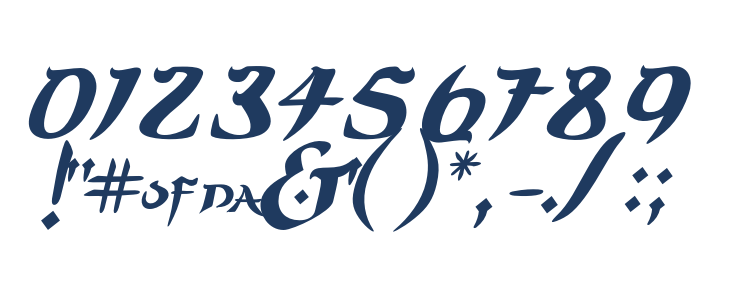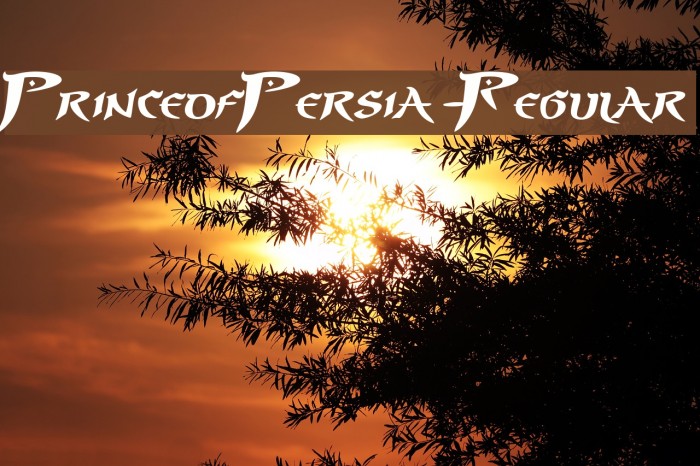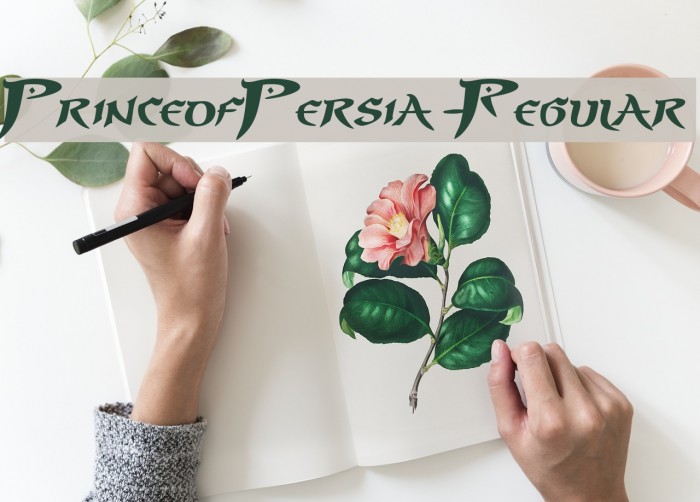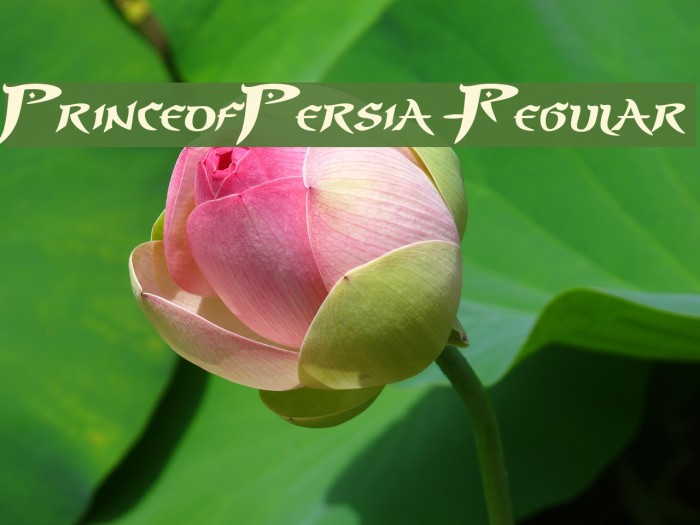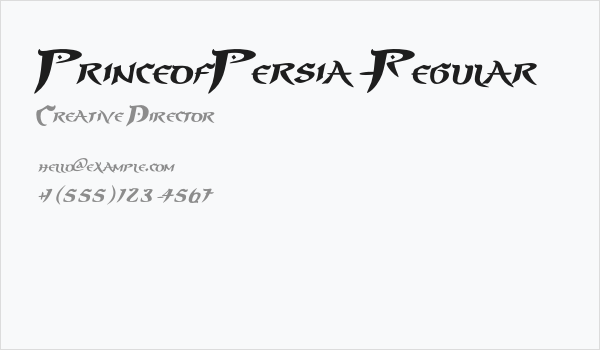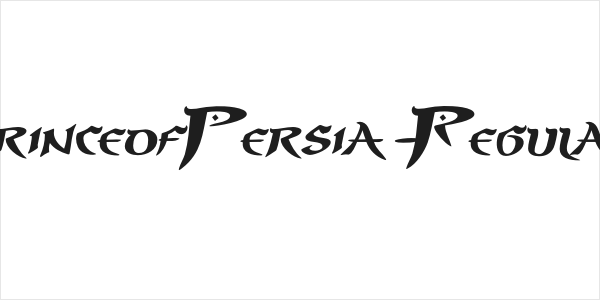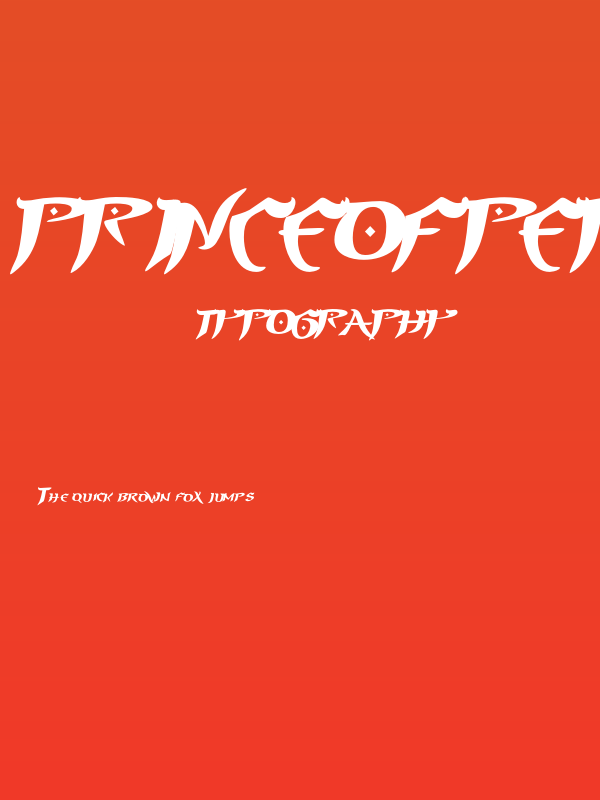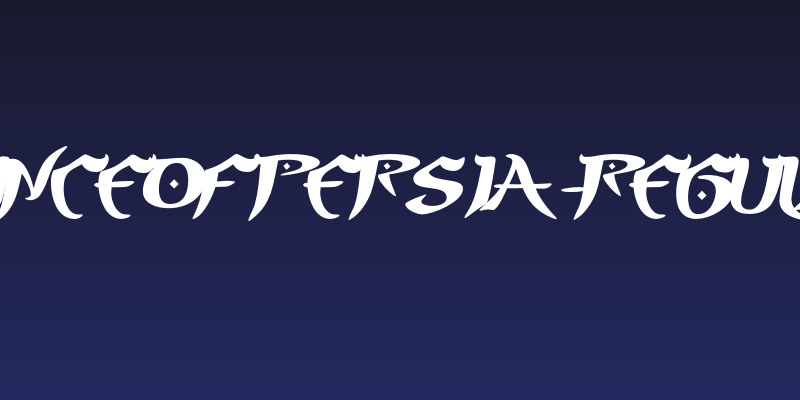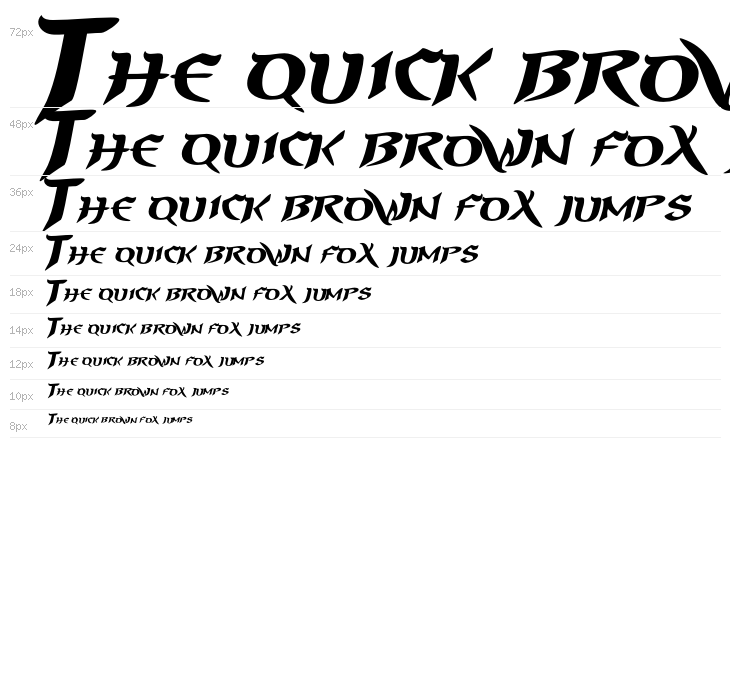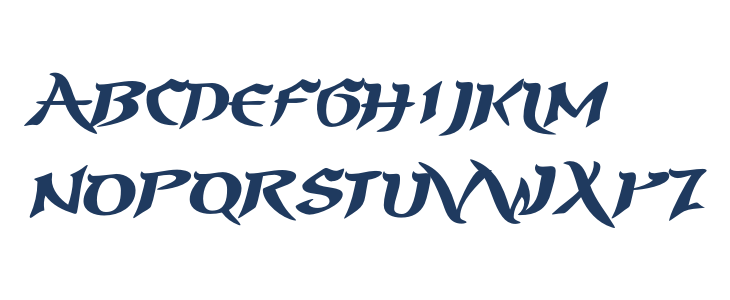
PrinceofPersia-Regular Font
PrinceofPersia-Regular Description
This font features a bold, dynamic style with sharp, angular lines and a distinct flair reminiscent of ancient scripts. The characters are designed with a high contrast between thick and thin strokes, giving them a dramatic and eye-catching appearance. The uppercase letters are particularly striking, with unique embellishments that add to the font's exotic and adventurous feel. The lowercase letters maintain a consistent style, ensuring readability while preserving the font's distinctive character. Numbers and special characters are crafted with the same attention to detail, making this font versatile for various design needs.
| Proposed Projects | Ideal for projects requiring a dramatic and adventurous look, such as video game titles, movie posters, or themed event invitations. |